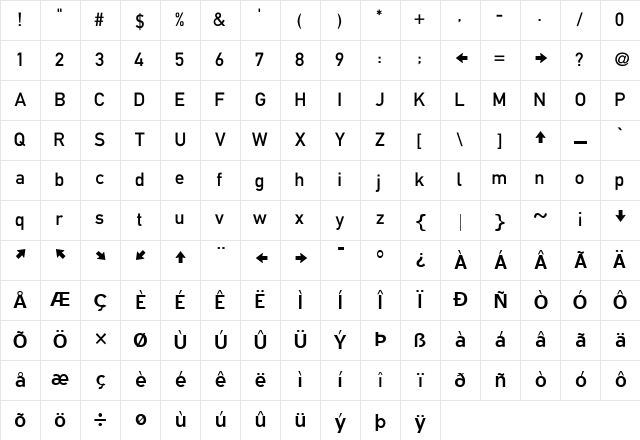
Complete DIN Mittelschrift glyph index. Displaying only characters natively supported by DIN Mittelschrift font.
DIN is a composed and adaptable typeface that performs quietly and consistently across a wide range of design contexts.